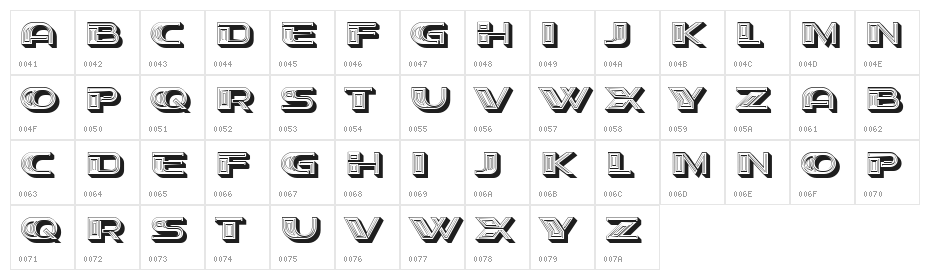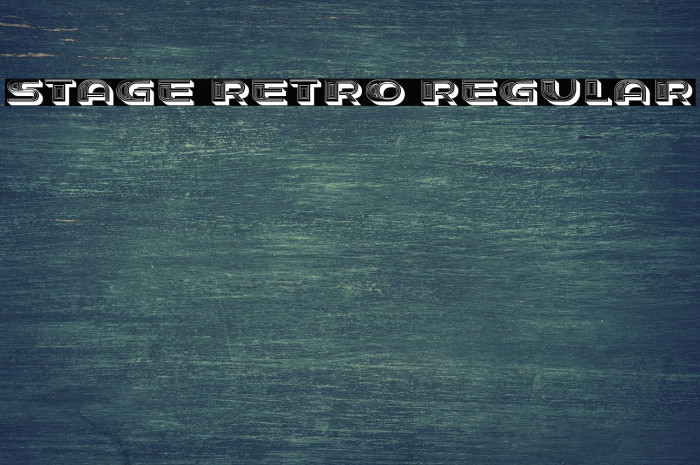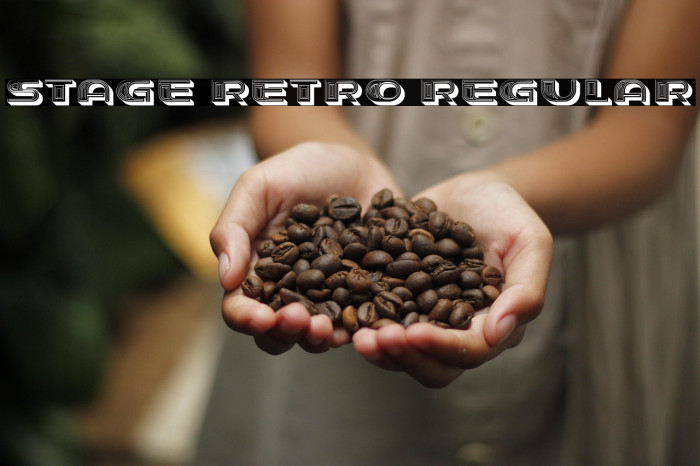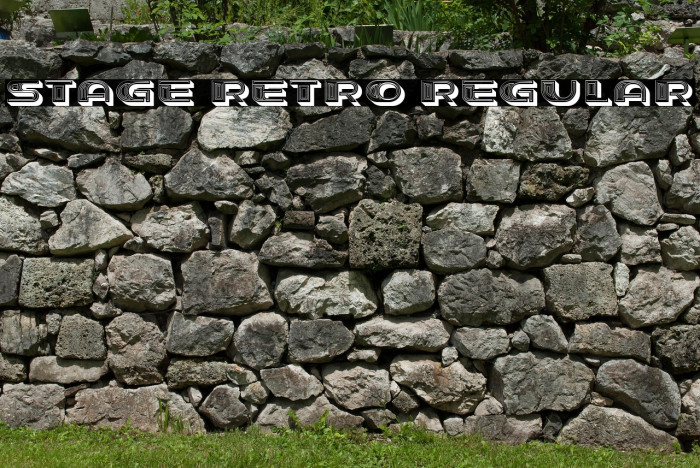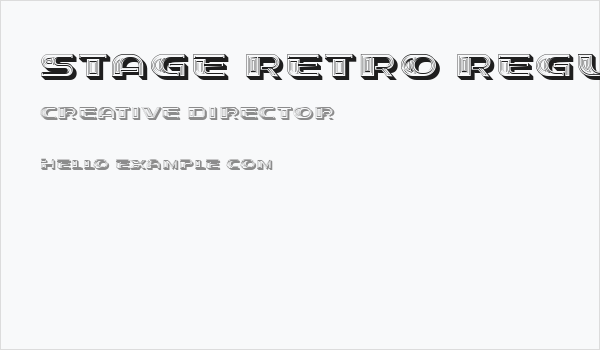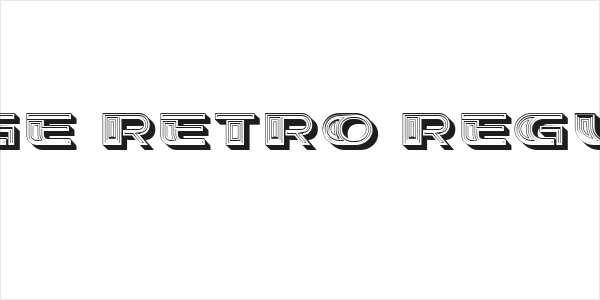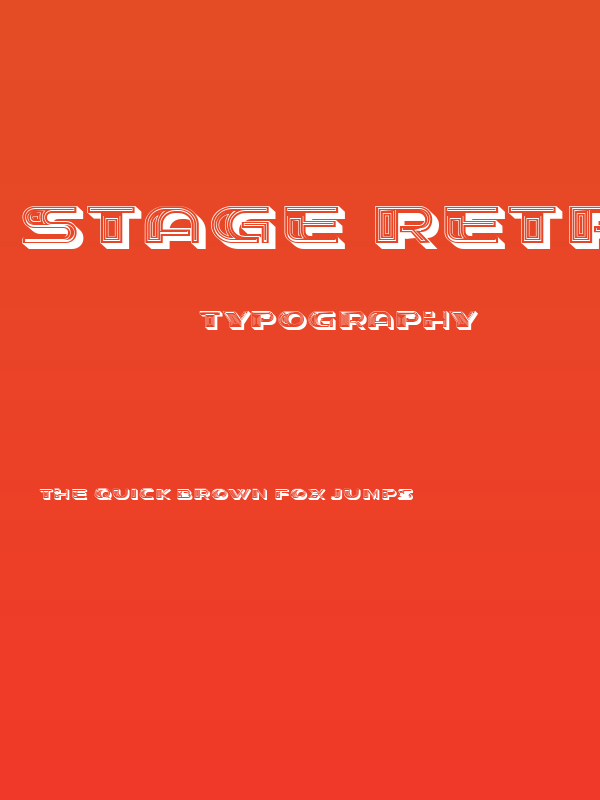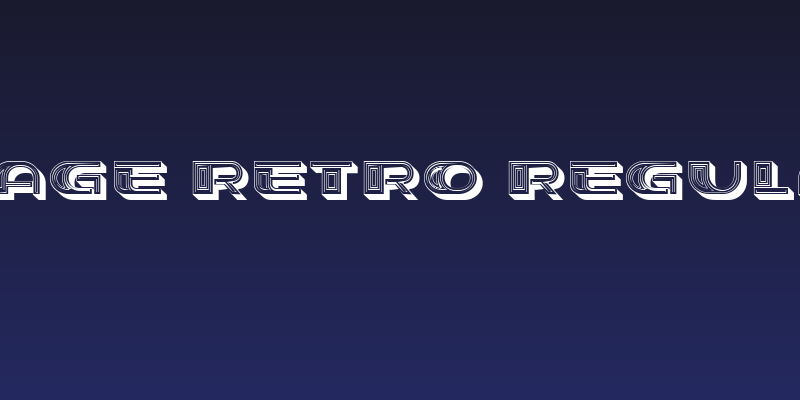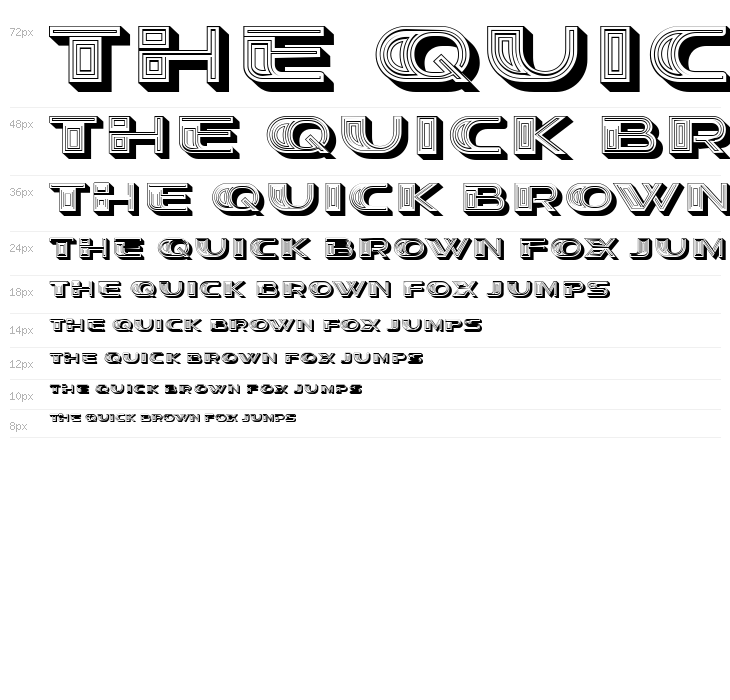
Stage Retro Regular Font
Stage Retro Regular Description
This font features a bold, retro-inspired design with a strong geometric structure. Each character is crafted with a three-dimensional effect, giving it a distinct shadow and depth. The lines are clean and precise, with a consistent width throughout each letterform. The style evokes a sense of nostalgia, reminiscent of vintage signage and classic arcade games. The uppercase letters are particularly striking, with a blocky appearance that commands attention. The font's unique aesthetic makes it ideal for projects that require a touch of retro flair and bold visual impact.
| Overall Style | Retro |
| Proposed Projects | Ideal for vintage-themed posters, retro branding, video game graphics, and eye-catching headlines. |